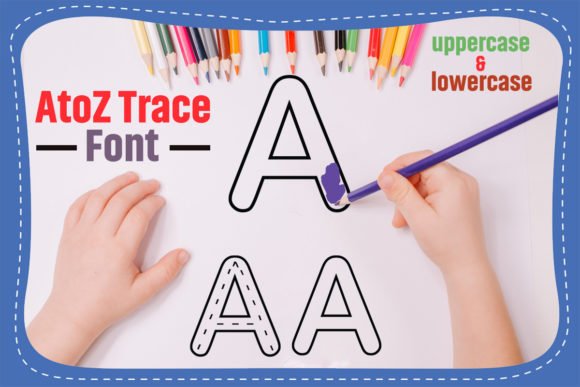
A Fun Way to Learn: Introducing AtoZ Trace for Kids Font
Who else remembers the excitement of learning to write their first alphabet? The joy of holding a crayon or pencil and carefully tracing those wobbly letters, feeling proud with each new skill acquired? For many of us, that moment sparked a lifelong love of learning and creativity.
Now, parents and educators can bring that same magic to their little ones with the AtoZ Trace for Kids Font. This unique display font is designed to make learning handwriting a fun and engaging experience for kids. Perfect for children and kindergarten purposes, the AtoZ Trace for Kids Font offers a modern and playful approach to writing practice.
For designers, the AtoZ Trace for Kids Font is a valuable resource, offering a fresh and creative solution for projects that require a kid-friendly aesthetic. Its unique writing practice style makes it an excellent choice for educational materials, children’s books, and other projects that require a playful touch.
AtoZ Trace for Kids Font Key Features
- Unique Alphabetical Order: The font features a unique alphabetical order, with each letter designed to be traced in a specific order, making it perfect for kids to learn and practice their alphabet.
- Tracing and Learning: Designed to help kids develop their fine motor skills and hand-eye coordination through tracing and writing exercises.
- Perfect for Kids’ Educational Materials: Suitable for use in educational materials, worksheets, and activities for kids, including alphabet books, tracing sheets, and more.
AtoZ Trace for Kids Font Review
I recently had the chance to review the AtoZ Trace for Kids Font, and I must say it’s a delightful addition to any kid-friendly design project. Here’s what I think:
- The font is highly customizable, making it easy to adjust to suit different design needs.
- The alphabet letters are designed with a fun, playful feel that kids will love.
- The font may not be suitable for all design projects, particularly those requiring a more formal or professional tone.
- The font is limited to uppercase letters, which may be a drawback for designers who need to include lowercase letters in their designs.
- The font may not be as versatile as other font options, making it less suitable for designers who need to create a wide range of designs.
Overall, I think the AtoZ Trace for Kids Font is a great addition to any kid-friendly design project. While it may have some limitations, its playful design and high customizability make it a great choice for designers looking to create engaging and fun designs for kids.
Use the AtoZ Trace for Kids Font to create engaging and interactive educational materials, such as alphabet tracing worksheets and phonics activities.
Combine the font with other creative elements, such as illustrations and graphics, to make your designs more visually appealing.
The AtoZ Trace for Kids Font is ideal for:
Alphabet tracing worksheets and phonics activities.
Early childhood educational materials, such as alphabet books and nursery rhymes.
Learning apps and online educational platforms.